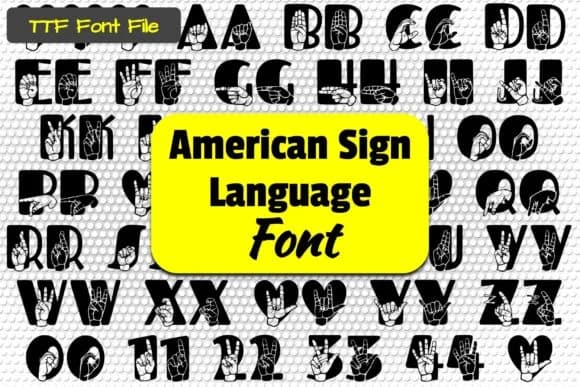
1 / 8About Able Lingo ASL 2 Font
Able Lingo ASL 2 translates American Sign Language hand positions into accessible typography. Designed by Able Lingo, this dingbat typeface gives you the complete ASL alphabet and numbers as typeable characters, each glyph representing an authentic hand sign from the language itself.
For educators and community organizations, this font fills a genuine gap. Classroom materials introducing sign language to hearing students see immediate benefit, as do comprehensive resources created for Deaf audiences and bilingual learners. Concrete applications include event signage for inclusive conferences and cultural celebrations, accessible product packaging that specifically reaches multilingual and Deaf consumers, children's craft projects and learning materials teaching communication alternatives, and DIY signage for businesses committed to real accessibility. Teachers find the typeface invaluable for creating bilingual (hearing and signing) educational handouts. Community centers rely on it for accessible directional signage and wayfinding. The TTF format works across platforms and design software, and the complete character set includes the full alphabet plus numerals.
Designers, educators, nonprofits, and crafters building projects for diverse communities will recognize this font's value immediately. It closes communication gaps rather than simply decorating them, serving audiences that standard typography overlooks entirely. Get it on Creative Fabrica and expand what your work can reach.
Able Lingo ASL 2 Font is a versatile dingbats font that works for both headings and body text. Pair it with a contrasting sans-serif or serif font to add visual interest and a clear distinction between titles and body copy.
Able Lingo ASL 2 Font
by Able Lingo